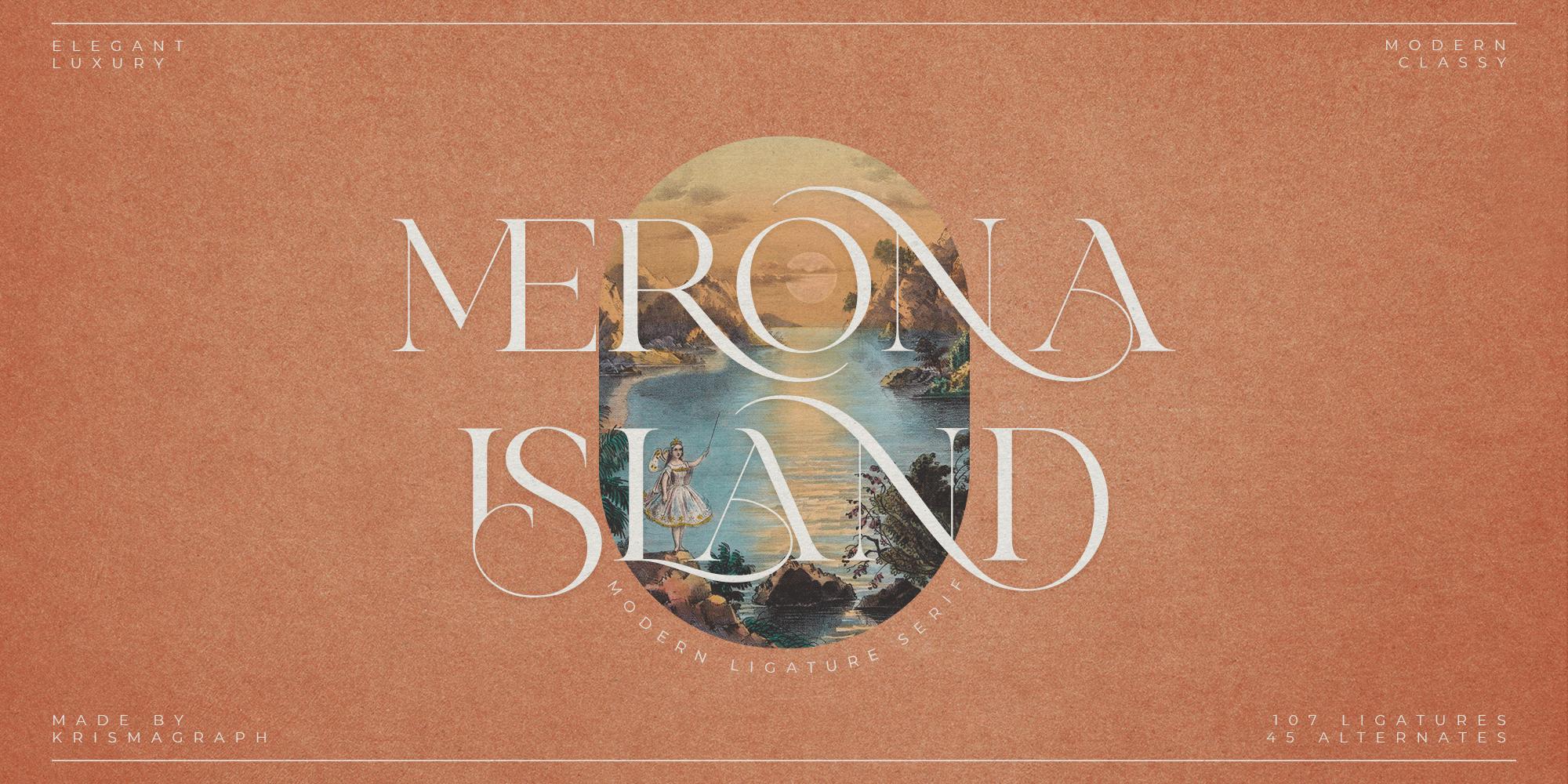
Merona Island Font is perfect for various applications including tropical resort branding, beach vacation packages, island restaurant menus, summer festival posters, coastal real estate marketing, surf shop logos, tropical beverage labels, beachside cafe signage, vacation rental websites, and paradise tourism campaigns.
What makes Merona Island Font so exciting is its captivating ability to transport viewers to a tropical paradise through typography alone. This enchanting typeface features relaxed, flowing letterforms with sun-kissed curves and breezy details that evoke the carefree spirit of island living and endless summer days. The font's laid-back character and vacation-inspired aesthetic make it ideal for brands that want to convey relaxation, escapism, and tropical bliss to audiences seeking adventure, leisure, and memorable vacation experiences.
Merona Island Font family includes multiple weights and styles: Light, Regular, Medium, Bold, Script, Condensed, Extended, Beach, and flowing Italic variants. Each family member maintains the font's signature tropical charm while offering different levels of visual impact and stylistic flexibility for diverse vacation and leisure applications.
The Merona Island Font Free Download offers designers access to a vacation-inspired typeface that excels in tourism and hospitality markets. Whether you're creating tropical resort identities, designing summer marketing campaigns, or developing beachside digital experiences, this font delivers the paradise aesthetic needed to inspire wanderlust in travel-minded consumers. Its relaxed styling and tropical essence make it particularly effective for vacation rentals, beach resorts, and summer lifestyle brands.
Typography enthusiasts will appreciate the carefree flow and tropical rhythm in Merona Island Font's design. The font features naturally flowing letterforms with gentle curves, optimized spacing, and perfectly balanced proportions that ensure excellent readability while maintaining its vacation character. From intimate travel brochures to large-scale resort signage, this typeface maintains its tropical charm and relaxed beauty across all design contexts.
For tourism web designers, Merona Island Font provides outstanding performance in vacation-themed digital environments and mobile booking platforms. The font's technical specifications are optimized for modern travel websites while preserving the warm, inviting edges that define its tropical character. Its versatility makes it suitable for both static promotional content and interactive vacation experiences.
Creative professionals working in tourism, hospitality, entertainment, and leisure sectors will find Merona Island Font to be an indispensable tool for projects requiring tropical visual communication. The font's ability to convey relaxation, adventure, and island paradise makes it invaluable for brands targeting vacation-seeking demographics.